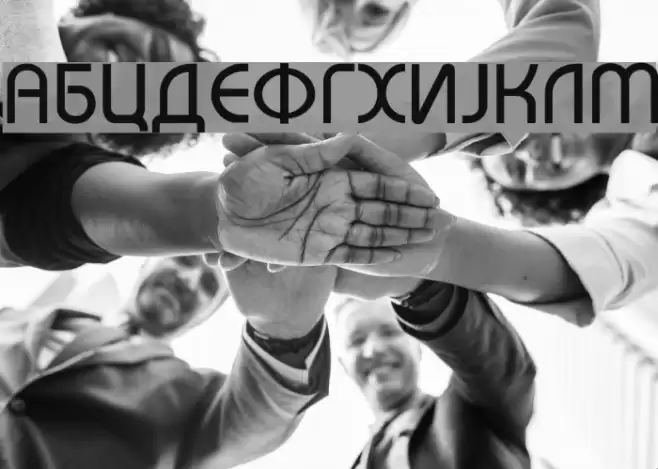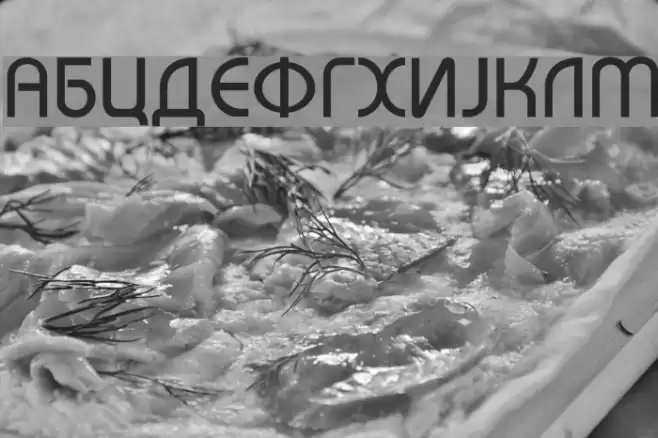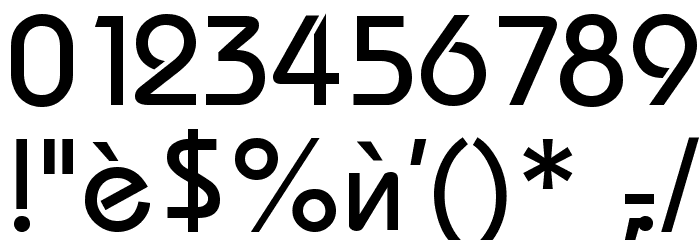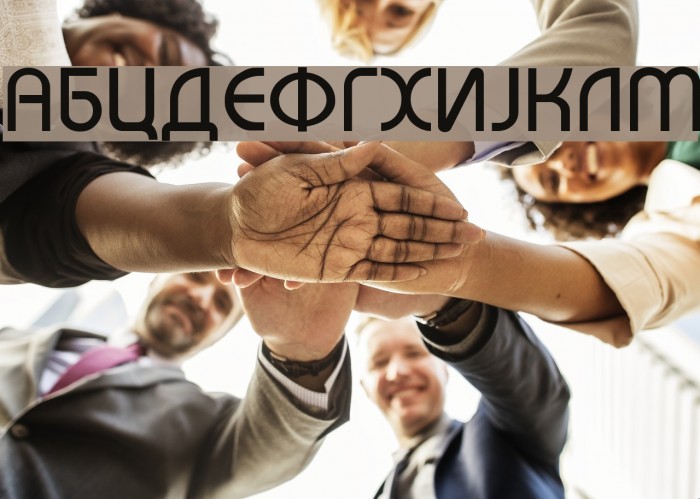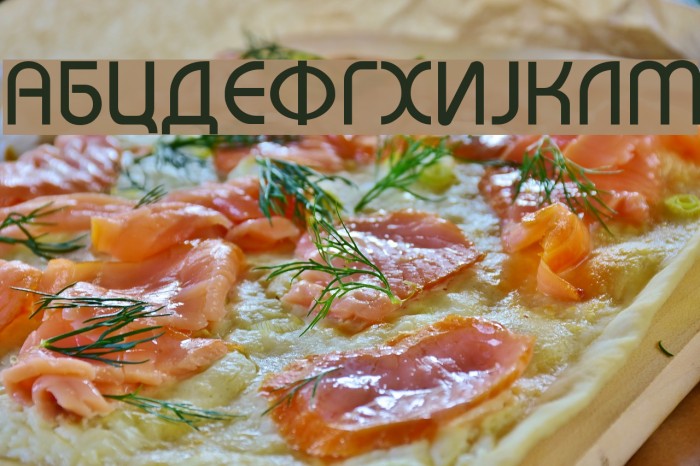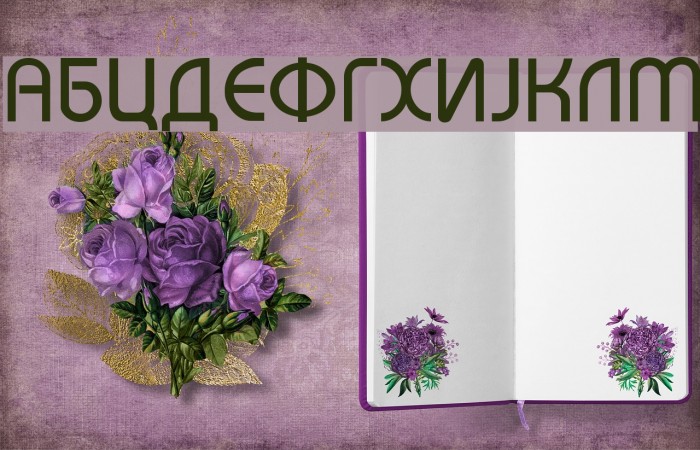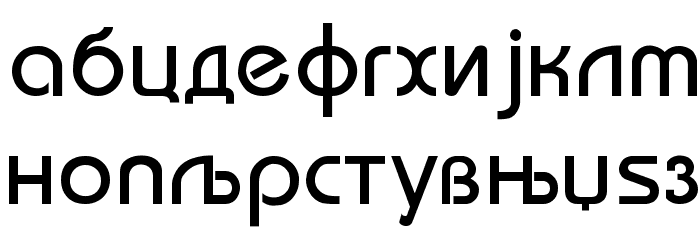
Macedonian Bahamas Font
Macedonian Bahamas Description
This font features a modern and clean design with smooth curves and a geometric structure. The characters are well-balanced, offering a harmonious blend of straight lines and rounded edges. The uppercase letters maintain a consistent height, while the lowercase letters are slightly shorter, providing a pleasing visual contrast. The numerals are clear and distinct, making them easily readable. Special characters are included, enhancing the font's versatility. Overall, this font exudes a contemporary feel, making it suitable for a variety of design applications.
A modern, geometric font with smooth curves and clean lines from Decorative fonts.